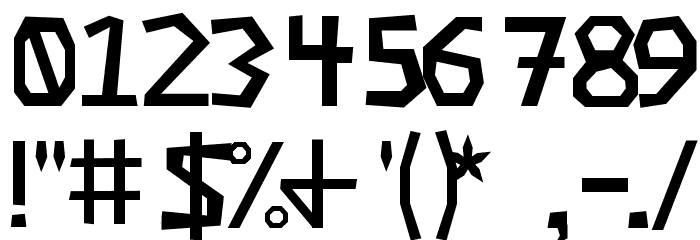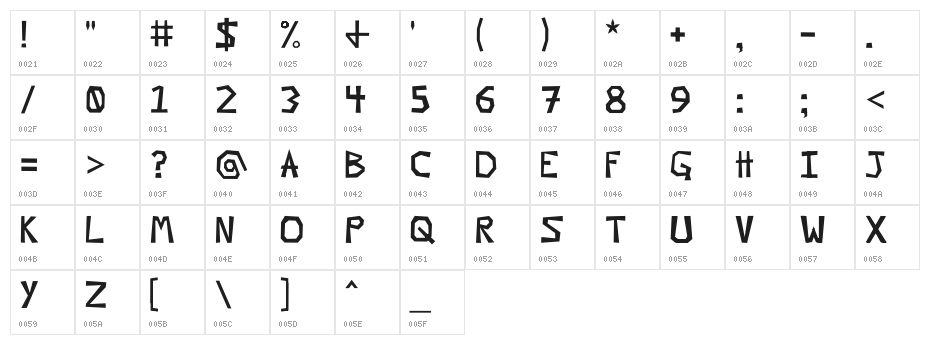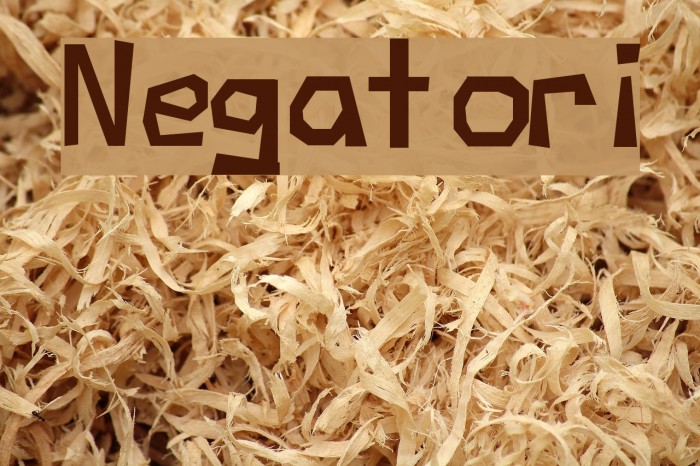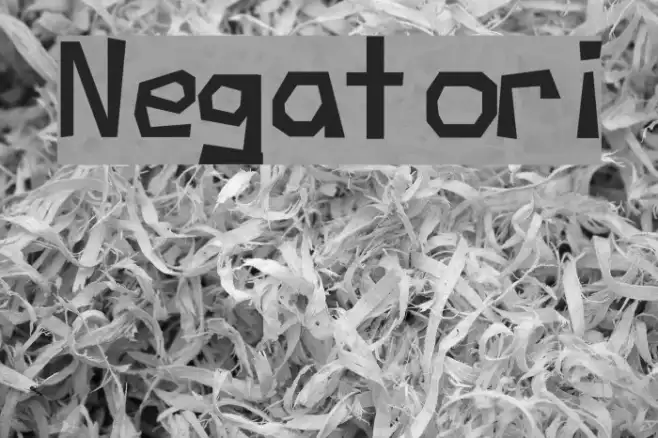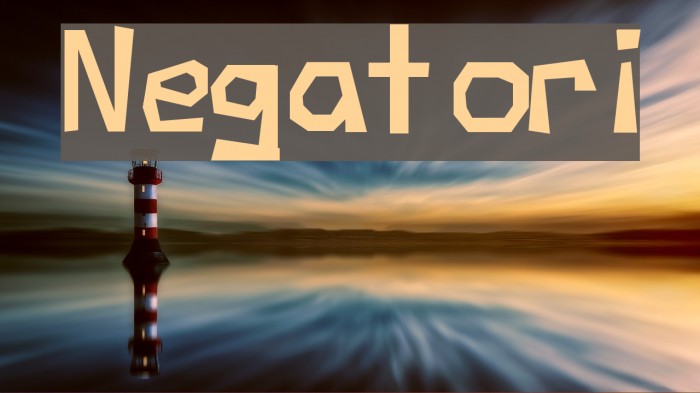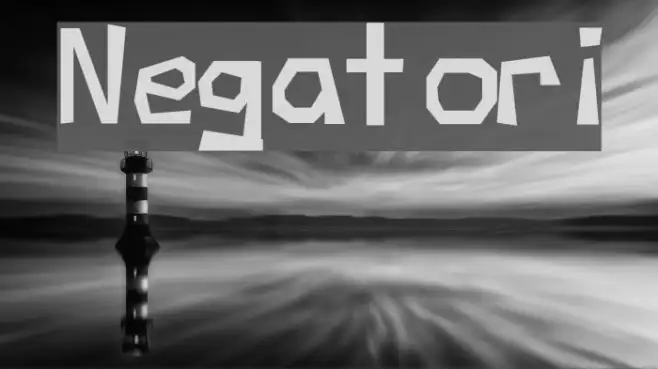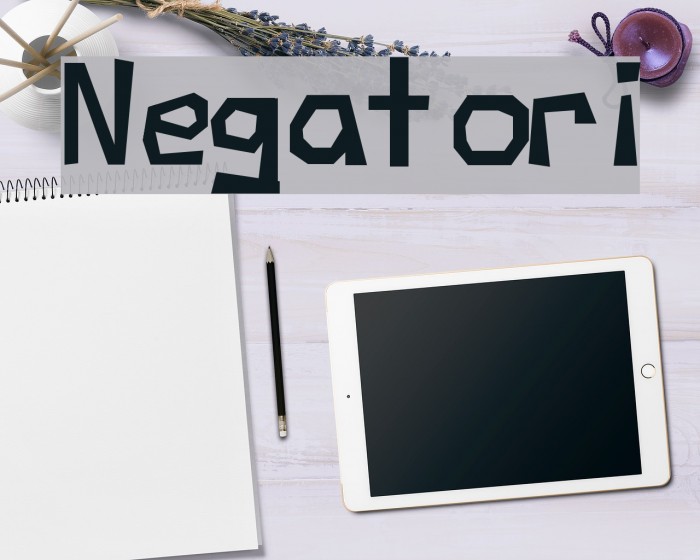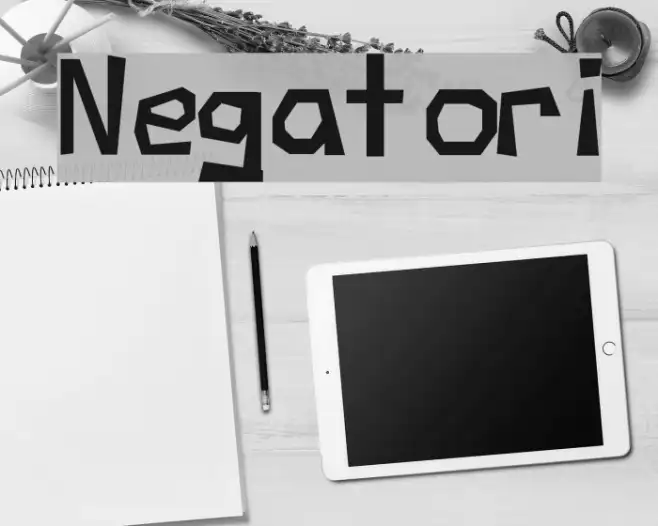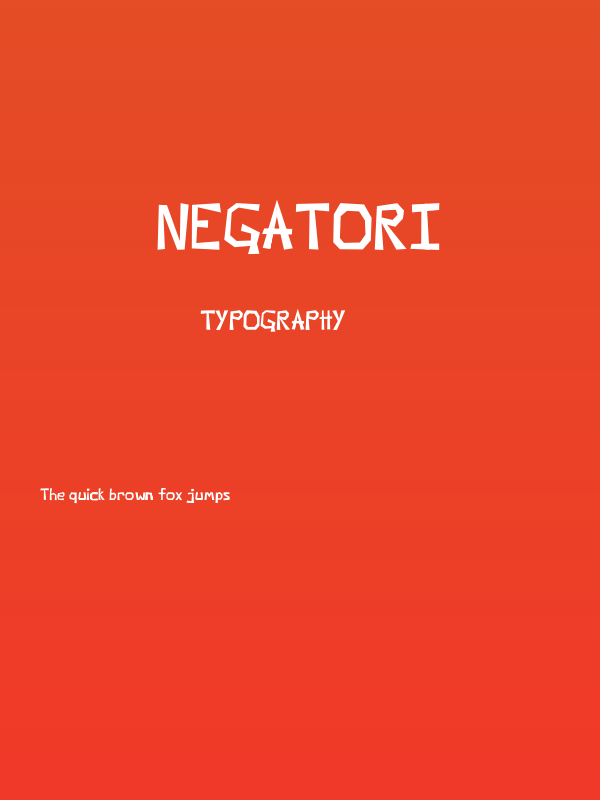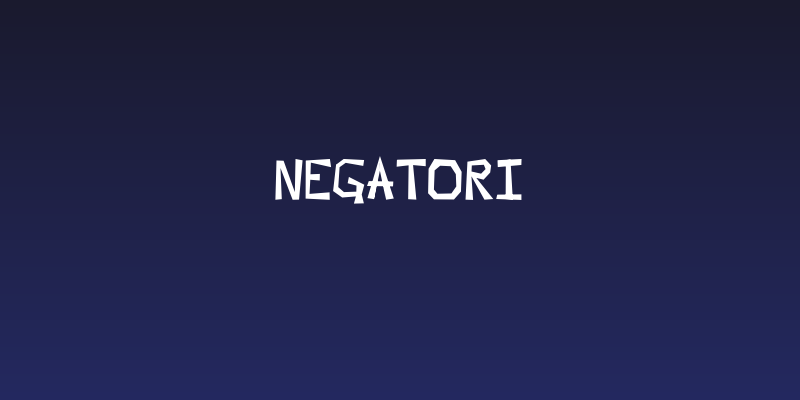
Negatori Description
This font features a bold and angular design with a distinctly geometric and edgy appearance. The characters are constructed with sharp, straight lines and acute angles, giving it a modern and somewhat aggressive look. The uppercase letters maintain a consistent height, while the lowercase letters have a unique style that complements the uppercase. Numbers and special characters follow the same angular theme, ensuring uniformity across the font. The overall design is striking and attention-grabbing, making it suitable for projects that require a bold statement.
| Proposed Projects | Ideal for posters, album covers, video game titles, and branding that requires a modern and bold aesthetic. |